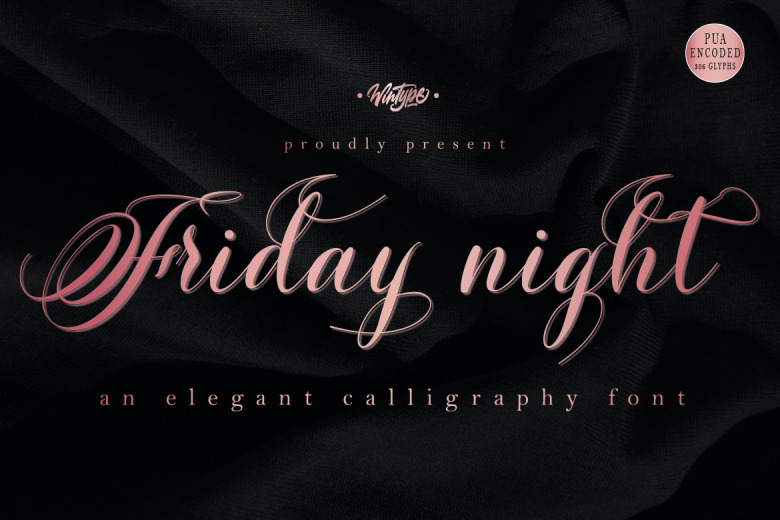
Friday Night Font
Presenting Friday night classy full-featured calligraphy font with tons of alternate characters and PUA ENCODED. Dictatoris “Handwriting with a weight” Our Friday Night Fonts are suitable for invitations, branding, packaging and editorial design. streamline your designs for more uniform projections.
Friday Night Calligraphy Script Font